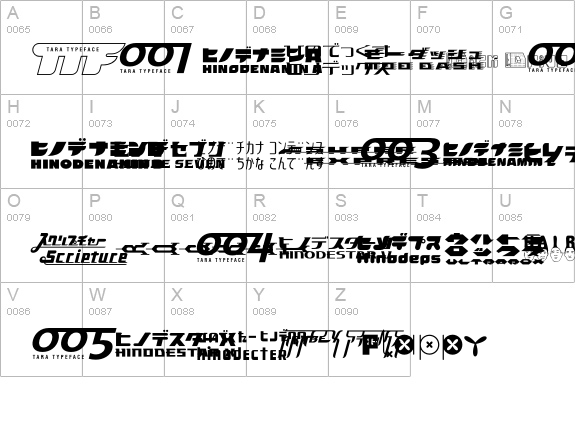
TTF Font Details
Introducing the captivating and versatile TTF font, a typeface that is sure to elevate any design project to new heights. With its sleek and modern aesthetic, this font effortlessly combines elegance and readability, making it an ideal choice for both digital and print applications. What sets this font apart is not only its impeccable design, but also its accessibility. We are thrilled to announce that this TTF font is available for free download exclusively at FontsMarket.com. That's right, you can now enjoy the beauty and functionality of this remarkable font without having to spend a penny. Whether you are a professional designer, a student, or simply a lover of typography, this free TTF font is a must-have addition to your collection. Its extensive character set allows for endless creative possibilities, ensuring that your designs will always stand out from the crowd. Crafted with meticulous attention to detail, this font boasts clean lines and sharp angles, creating a visually stunning display of letters and symbols. Its versatility extends to a wide range of design projects, including logos, branding materials, websites, posters, and more. The legibility of this font remains exceptional even at smaller sizes, making it perfect for body text as well. With its commitment to excellence and accessibility, this TTF font is a true game-changer in the world of typography. Whether you're a seasoned designer or just starting out, this font will undoubtedly inspire and empower you to create stunning and impactful designs. So why wait? Download this free TTF font today exclusively at FontsMarket.com and unlock a world of endless design possibilities. Experience the beauty and functionality of this remarkable font and take your creative endeavors to new heights.